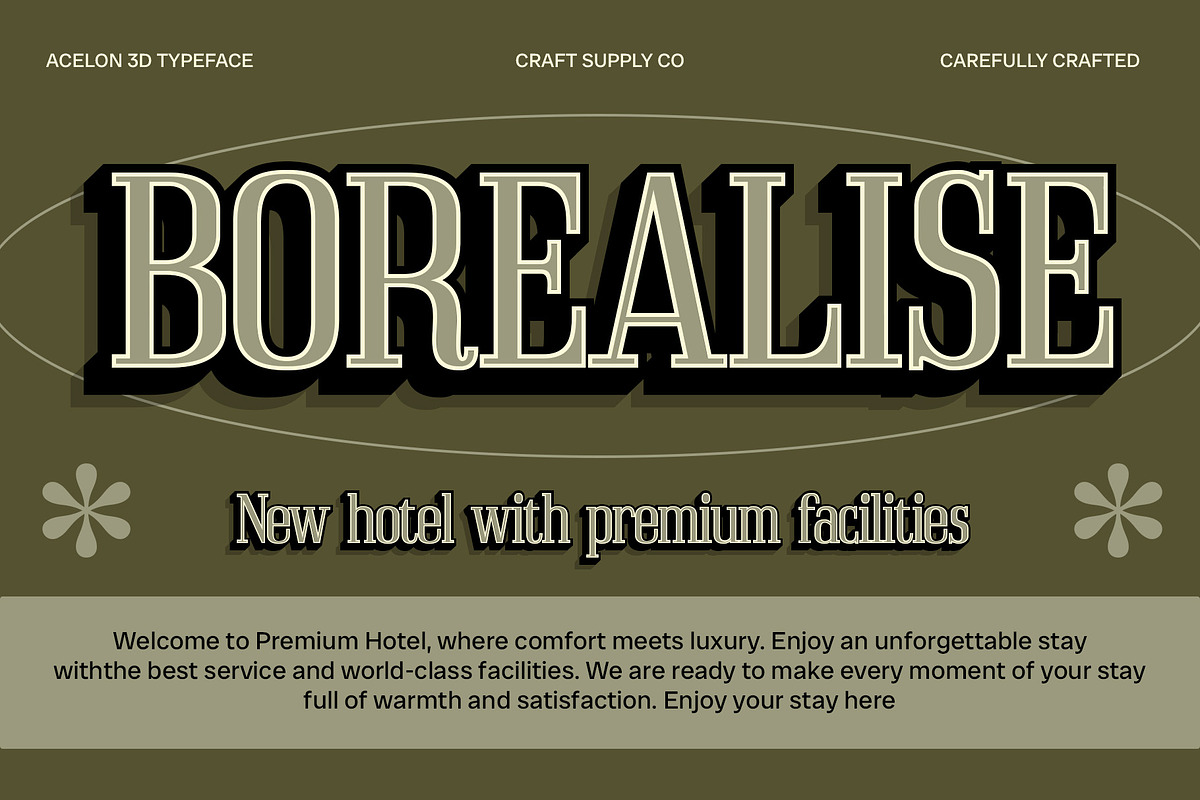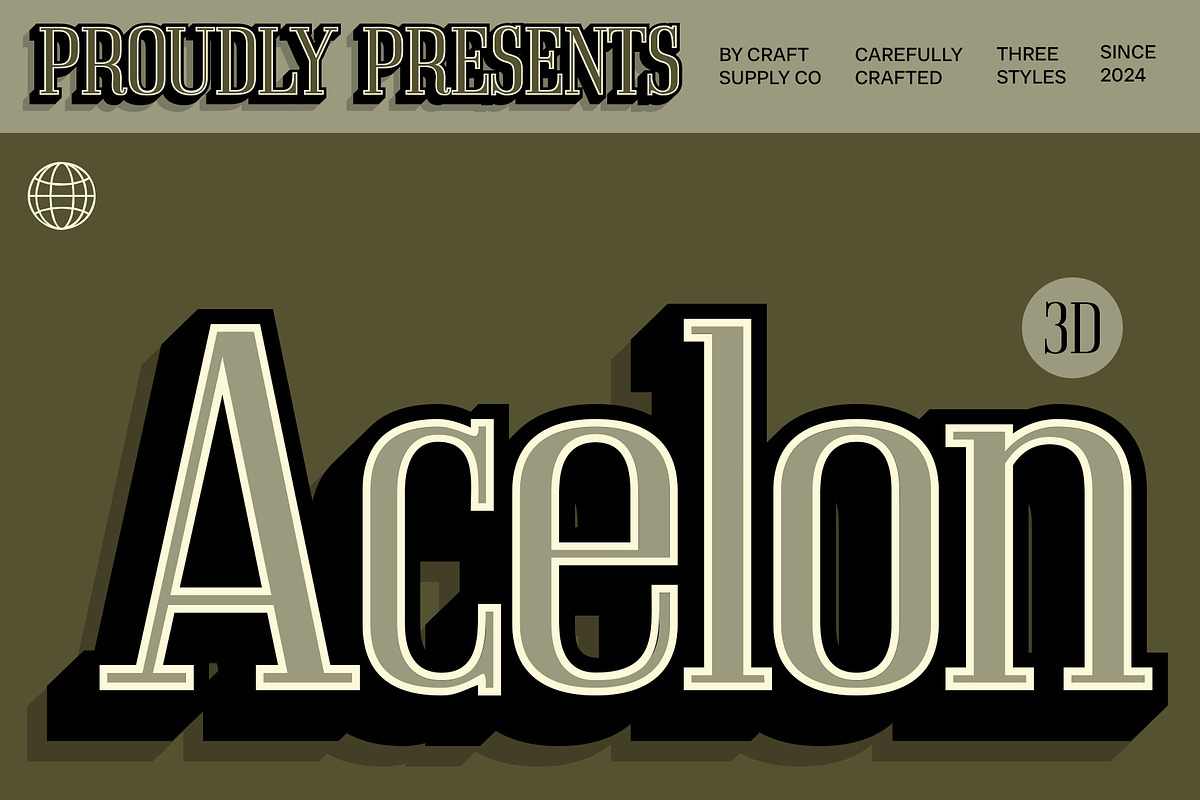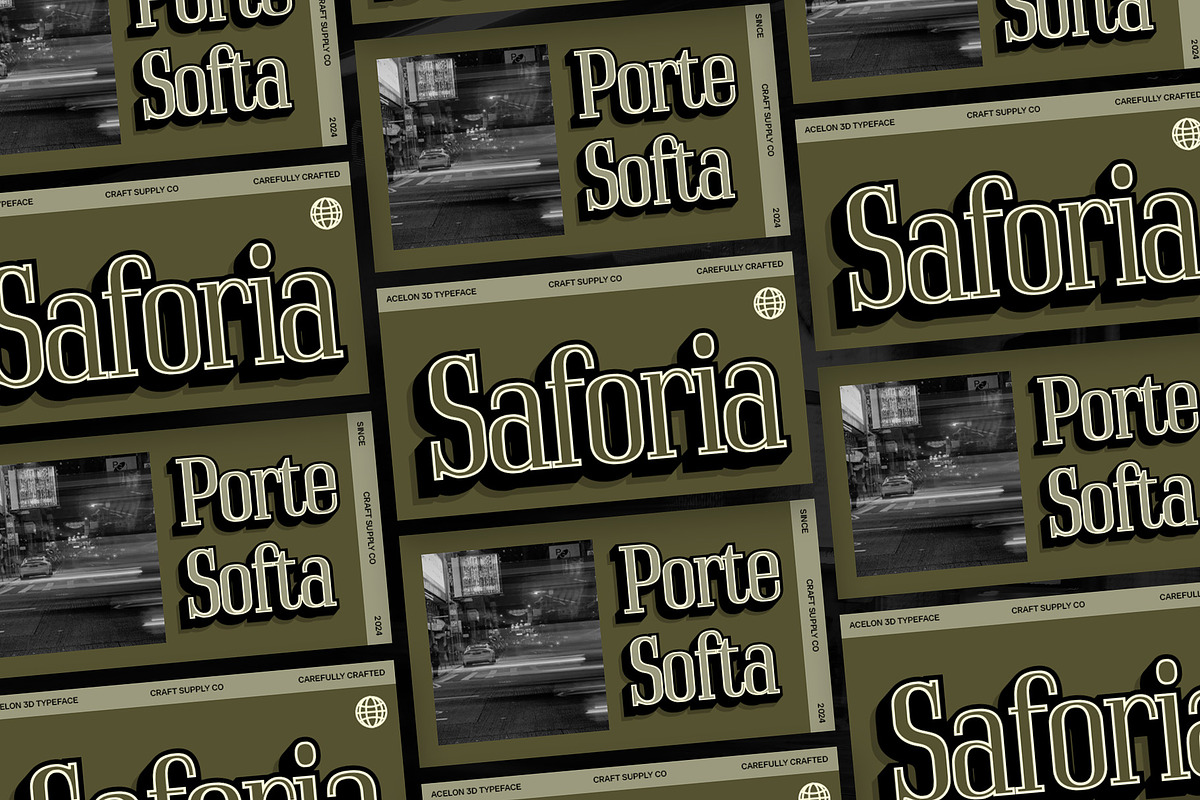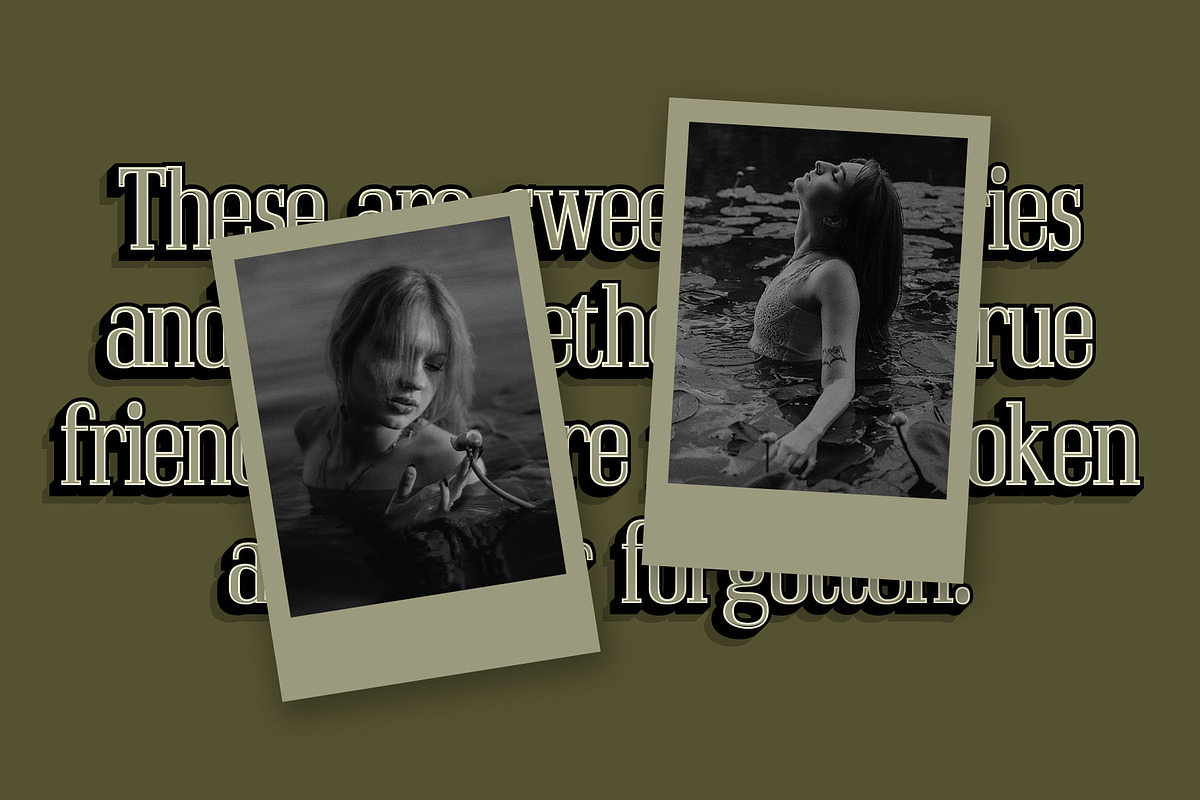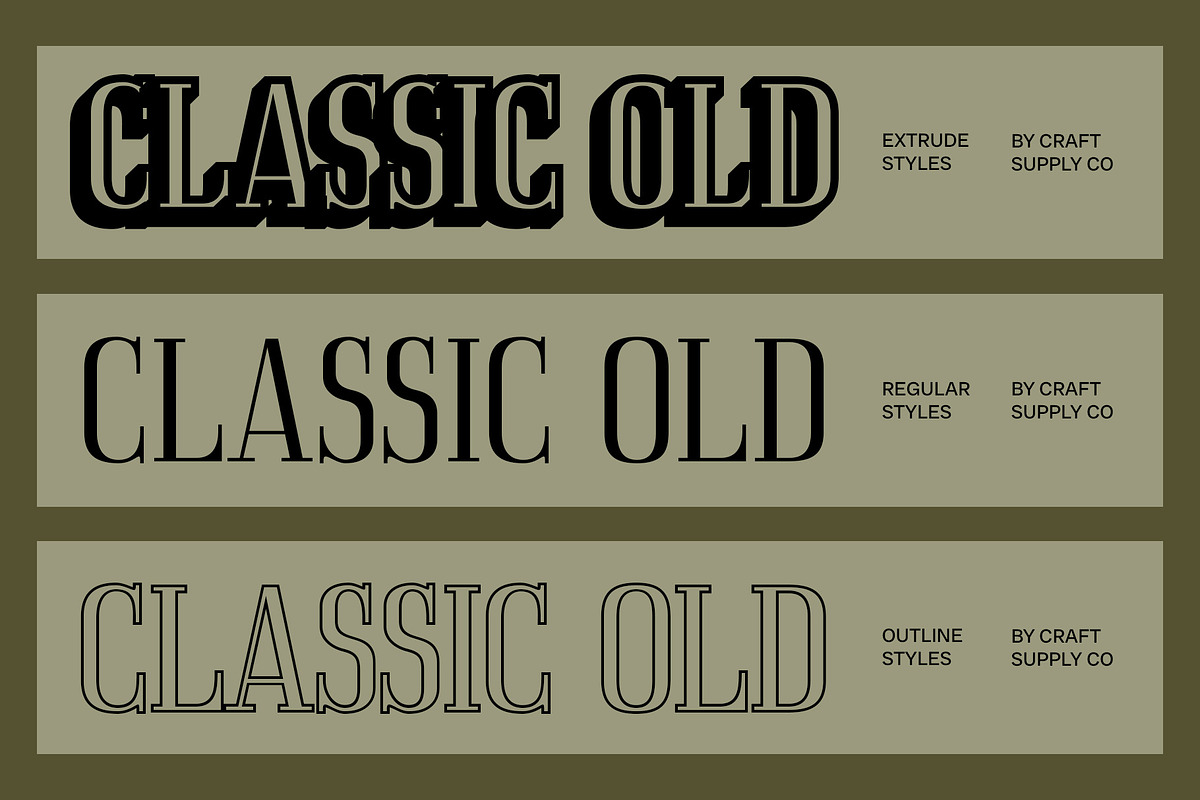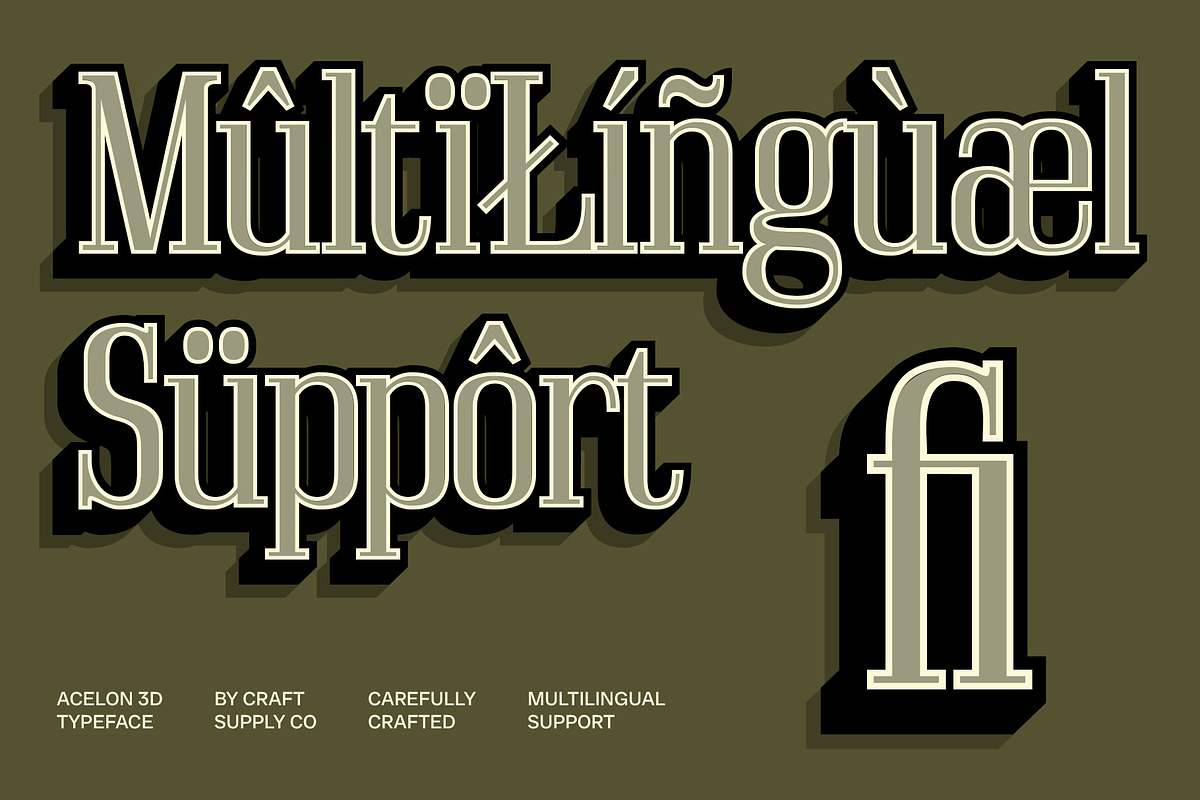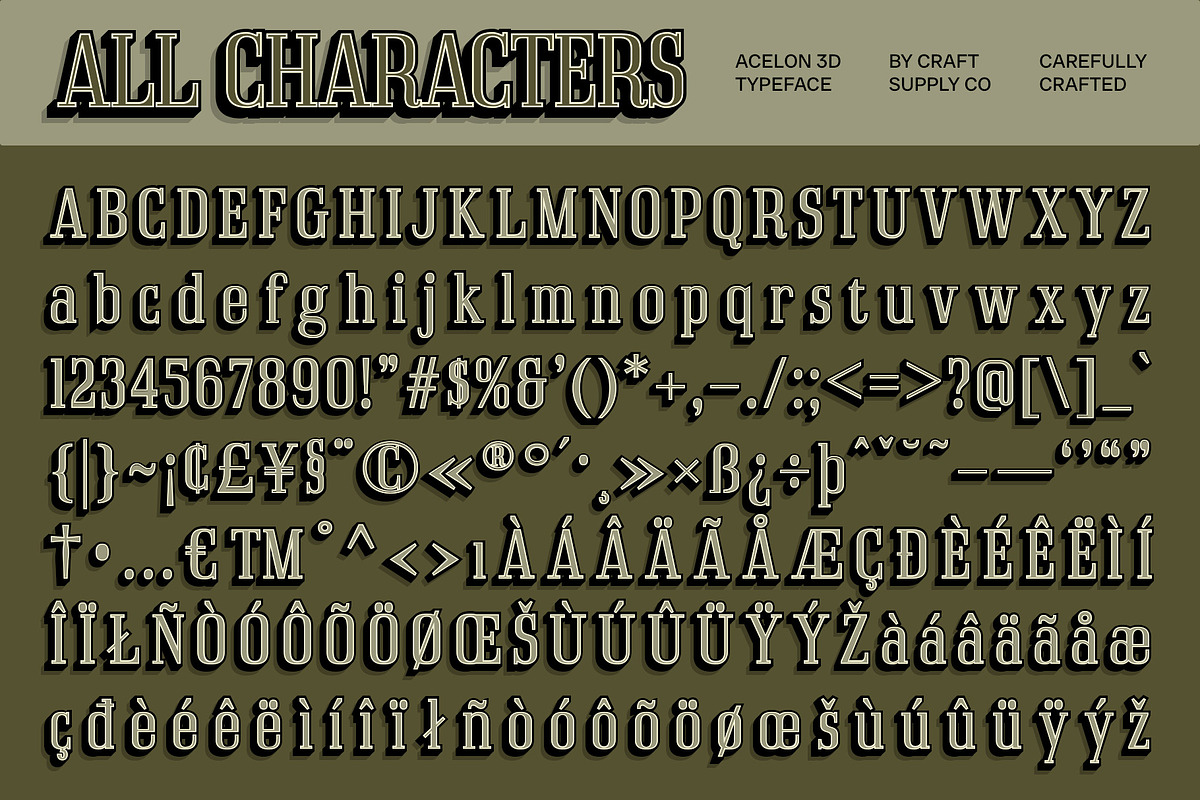
Acelon 3D
Acelon 3D Font: Modern Condensed Serif Font
Elegant and Functional Design Acelon 3D is a modern condensed serif font that masterfully blends elegance with functionality. Its slim, condensed shape is designed to maximize space efficiency while ensuring clear readability. This streamlined appearance is perfect for applications where space is at a premium but a sophisticated look is still required.
Dynamic 3D Effect The font’s 3D effect introduces an engaging dimension and depth to the design. This contemporary touch enhances its visual appeal, creating standout graphics that capture attention. The interplay between the classic serif structure and the modern 3D enhancement provides a striking balance between tradition and innovation.
Professional and Sophisticated Acelon 3D offers a professional and polished look, making it suitable for a wide range of applications, from corporate branding to editorial layouts. Its elegant serif design combined with a bold 3D effect ensures that it not only meets functional needs but also delivers a prominent and sophisticated visual impact.
Ideal for Impactful Designs Whether used in headlines, logos, or promotional materials, Acelon 3D adds a layer of depth and character to any project. Its modern aesthetic and dimensional quality make it an excellent choice for designs that require both a refined touch and a striking visual presence.
- Acelon Regular
- Acelon Outline
- Acelon Extrude Right
- Acelon Extrude Left